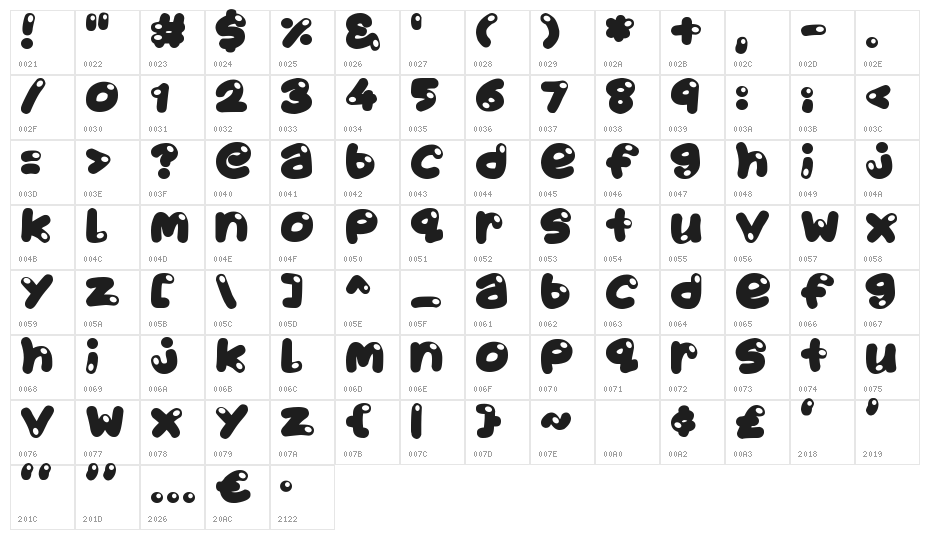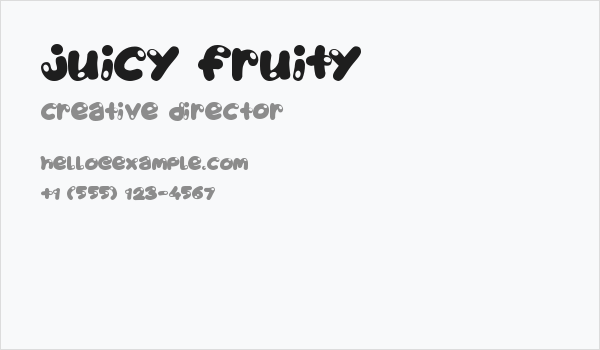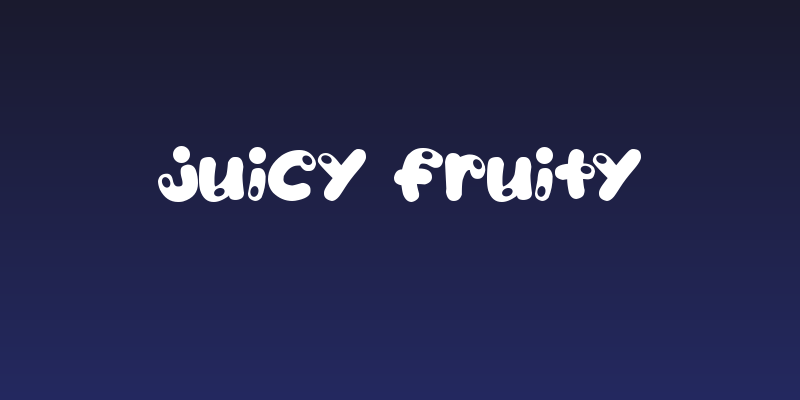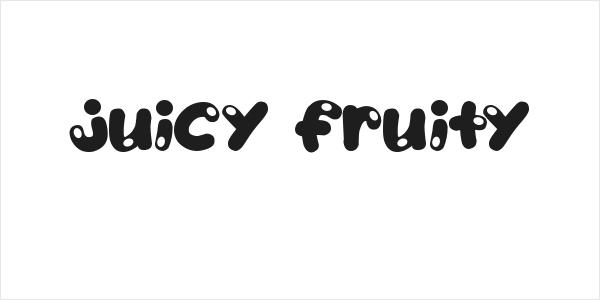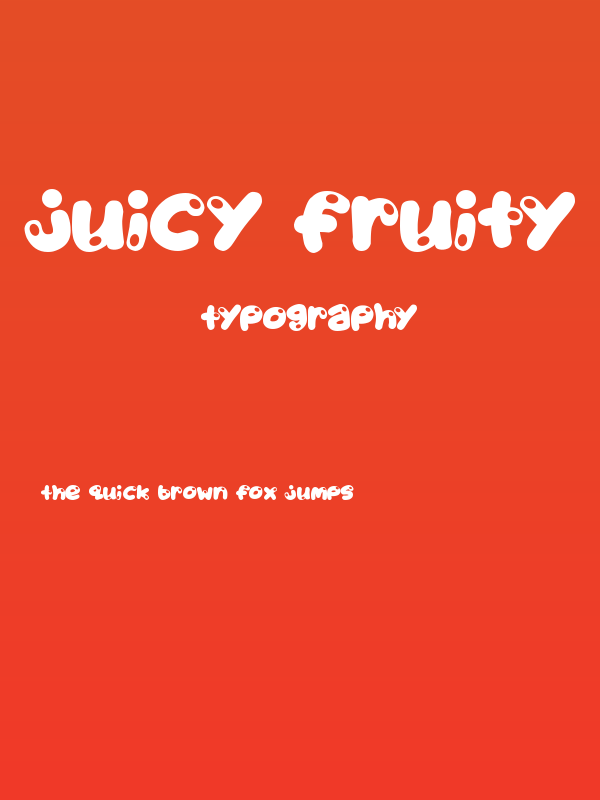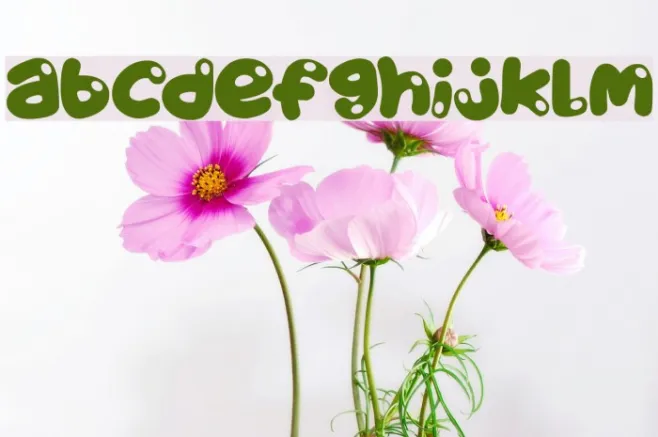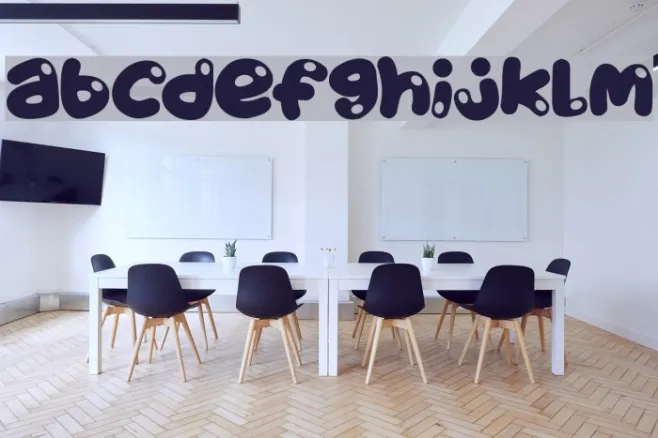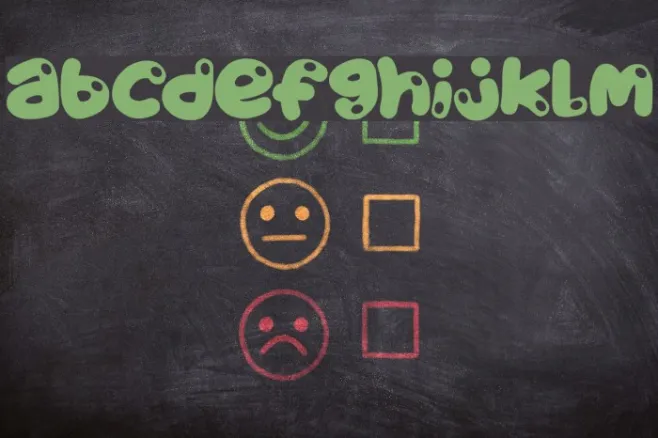
Juicy Fruity Font
Juicy Fruity Description
This playful and bold font features rounded, bubbly characters with a whimsical and fun appearance. Each letter is crafted with a unique, organic shape that gives it a lively and energetic feel. The font's thick strokes and rounded edges create a sense of fullness and approachability, making it ideal for designs that aim to capture attention and convey a sense of joy. The inclusion of small, circular cutouts within some characters adds an extra layer of visual interest and uniqueness. Its overall style is reminiscent of retro and pop art influences, making it suitable for creative and vibrant projects.
| Overall Style | Playful, Retro, Creative |